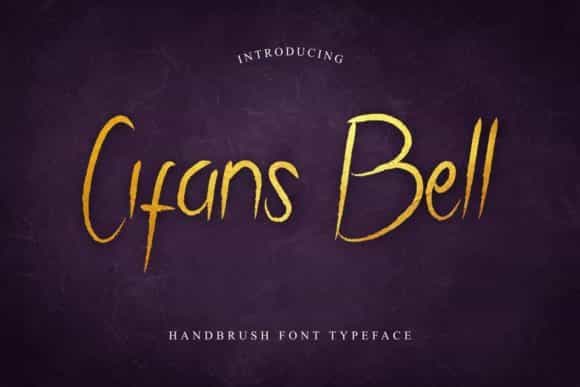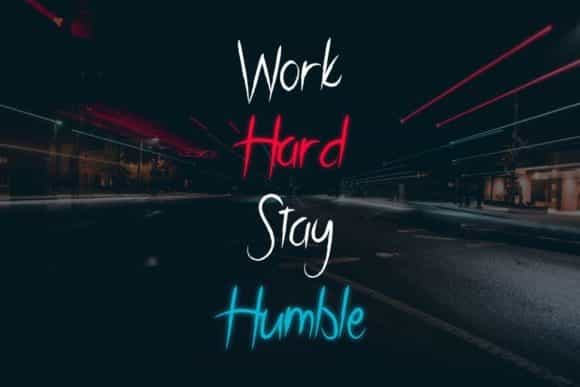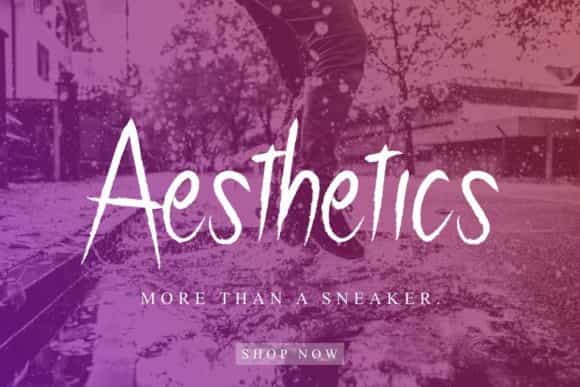
Cifans Bell turns the complexity of elegance into a font that is no less than outstanding. This font is the product of a perfect combination of a brush pen that makes it look very cute and real. Apply this beautiful and one of a kind handwritten font to your DIY project, it will be revived!